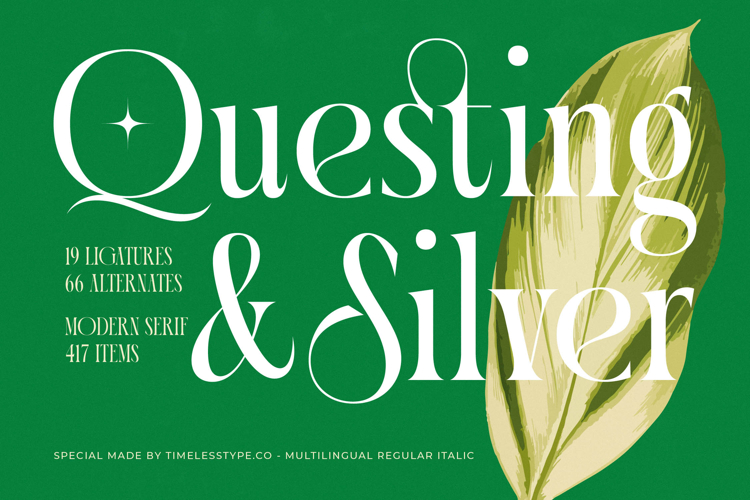
Questing Silver - Modern Serif Font
The Questing & Silver Typeface is a modern serif font that combines timeless elegance with artistic sophistication. With 19 ligatures, 66 alternates, and over 417 items, it offers designers exceptional flexibility to create customized and visually striking typography. Each character is crafted with a strong contrast between thick and thin strokes, featuring sharp edges balanced by graceful curves, resulting in a typeface that is both bold and refined. Its decorative alternates and swash-like ligatures add rhythm and movement, turning ordinary text into captivating visual statements.
This typeface is perfectly suited for editorial design, where it can elevate magazine spreads, feature headlines, and book covers with a sense of grandeur and style. Its sculptural forms and high-contrast details make it especially effective for luxury branding, whether for fashion, fine jewelry, beauty products, or high-end packaging. Logos, wordmarks, and monograms created with Questing & Silver exude exclusivity and timeless sophistication, ensuring strong visual identity and memorability.
In the world of entertainment and storytelling, the typeface brings a cinematic and dramatic presence that is ideal for film titles, theater posters, and album covers. Its ornamental flourishes enhance the narrative quality of the text, allowing it to become a central visual element that commands attention. The italic version further expands its creative potential, enabling dynamic typographic contrasts and expressive layouts that suit both print and digital applications.